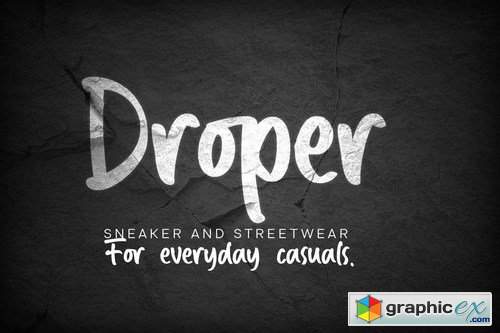
Apetize
Apetize is a casual marker font, this font is suitable for a variety of purposes, it is great for logos, craft, prints, text headers, web banners, writing quotes as well as for video editing, animation and other visual presentations.